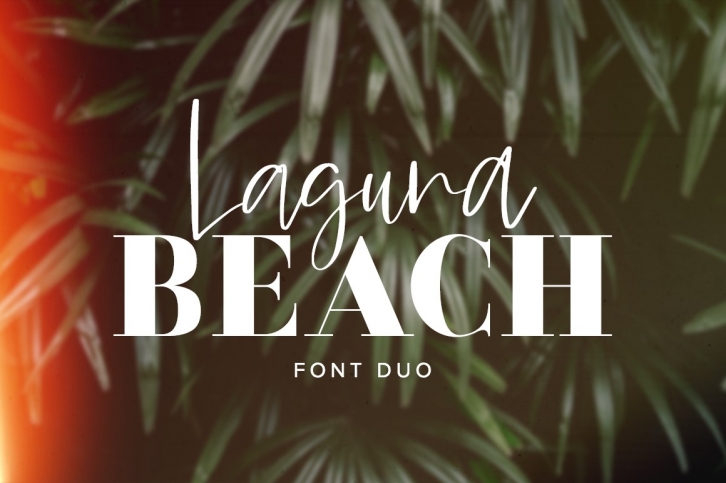
Laguna Beach Duo is a trendy and unique font with an authentic style. It was designed by Jen Wagner Co. and it's a great choice for creative people who need such a font. It was released on September 24, 2018 and the file size is 7.27 MB. Laguna Beach Duo will add an organic vibe to any design idea!